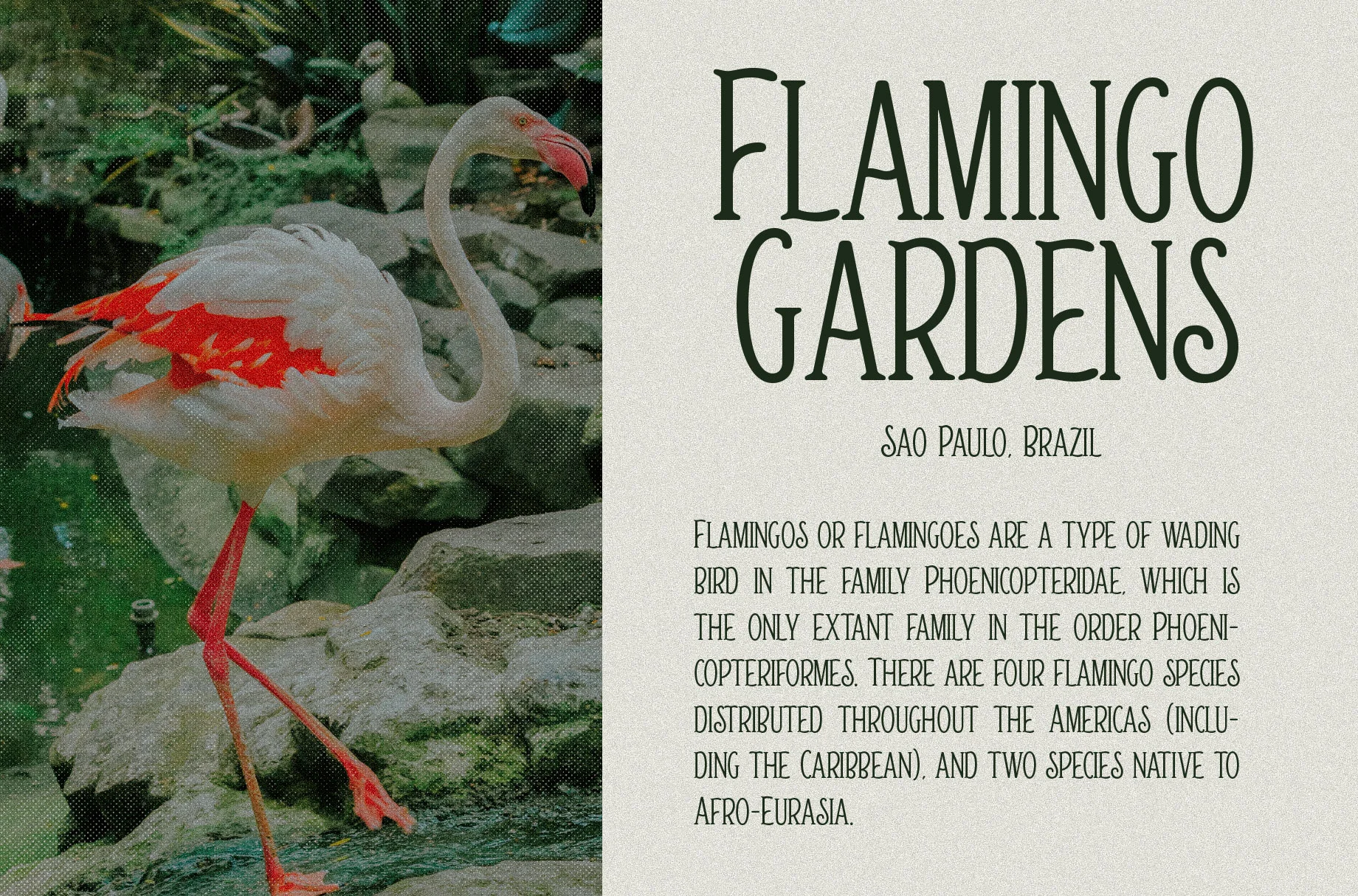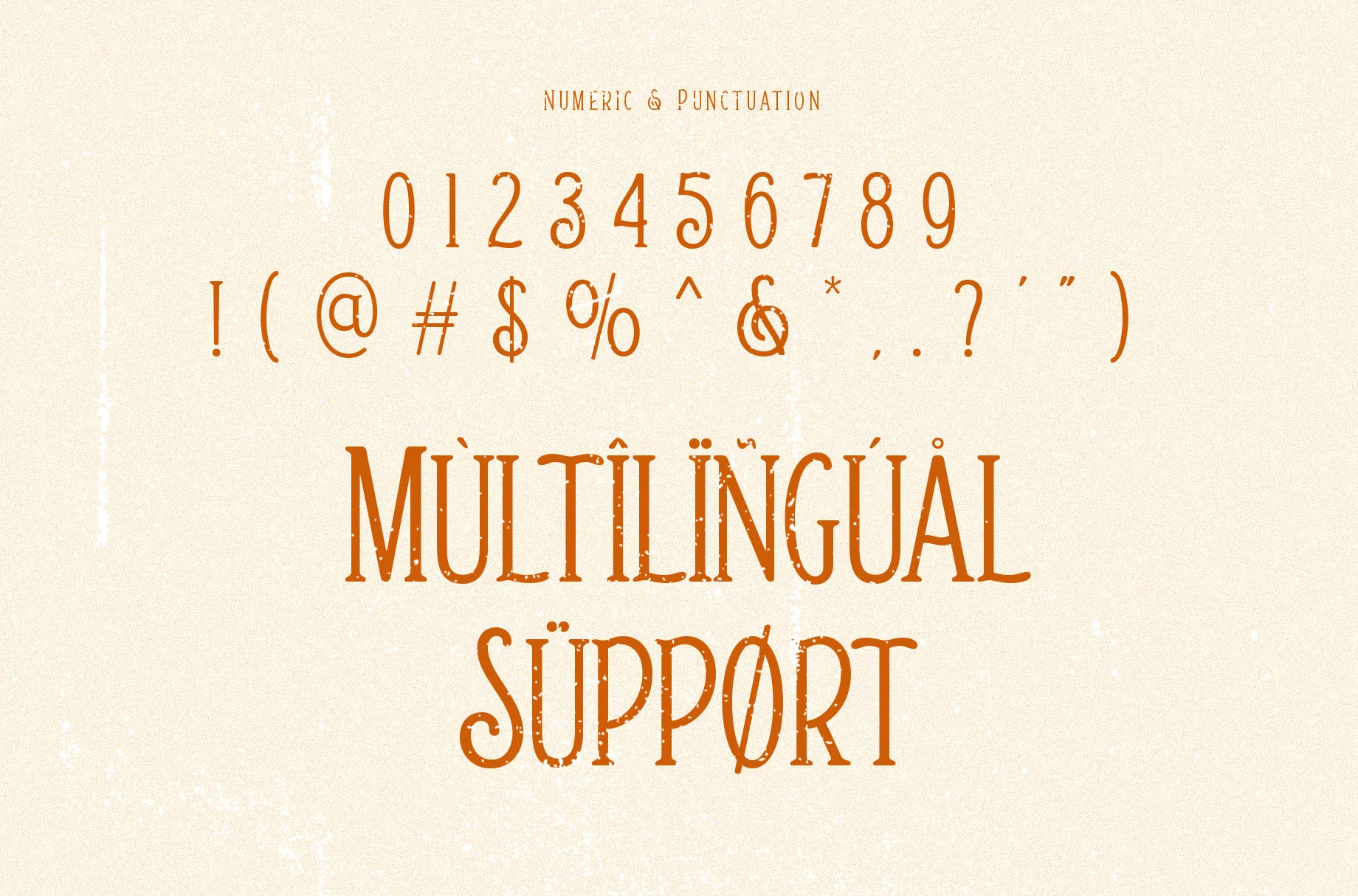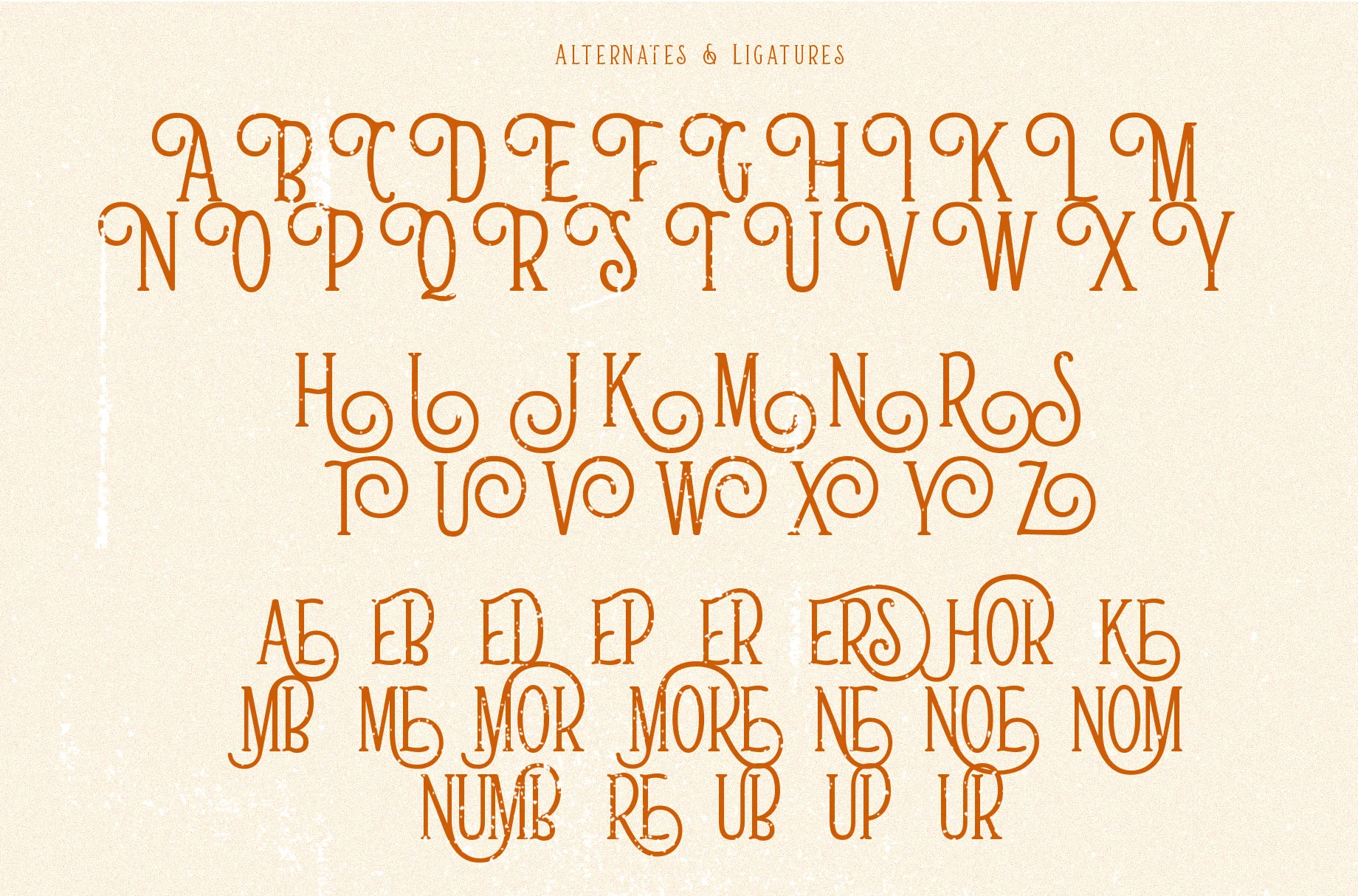
Vibe Sure
- Spacing Monospace
Vibe Sure will perfect for many project: book, magazines, logo, branding, photography, quotes, blog header, poster, advertisements, etc.